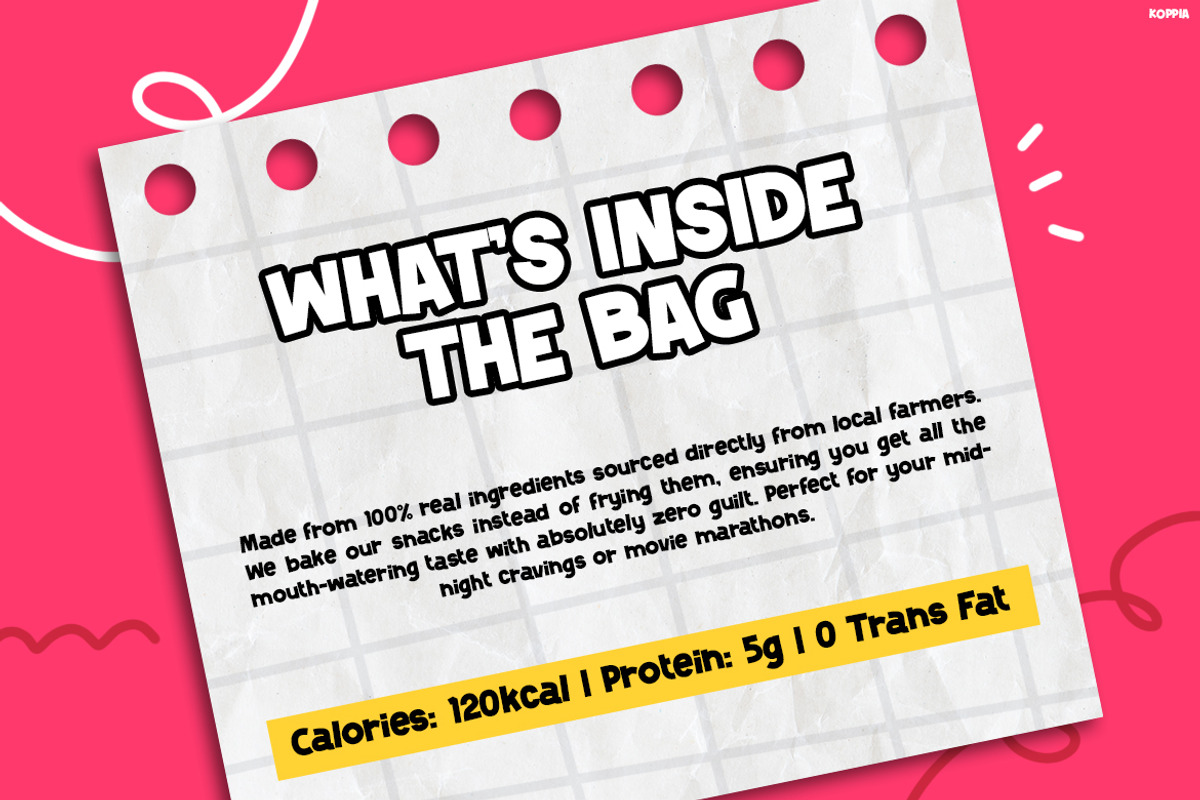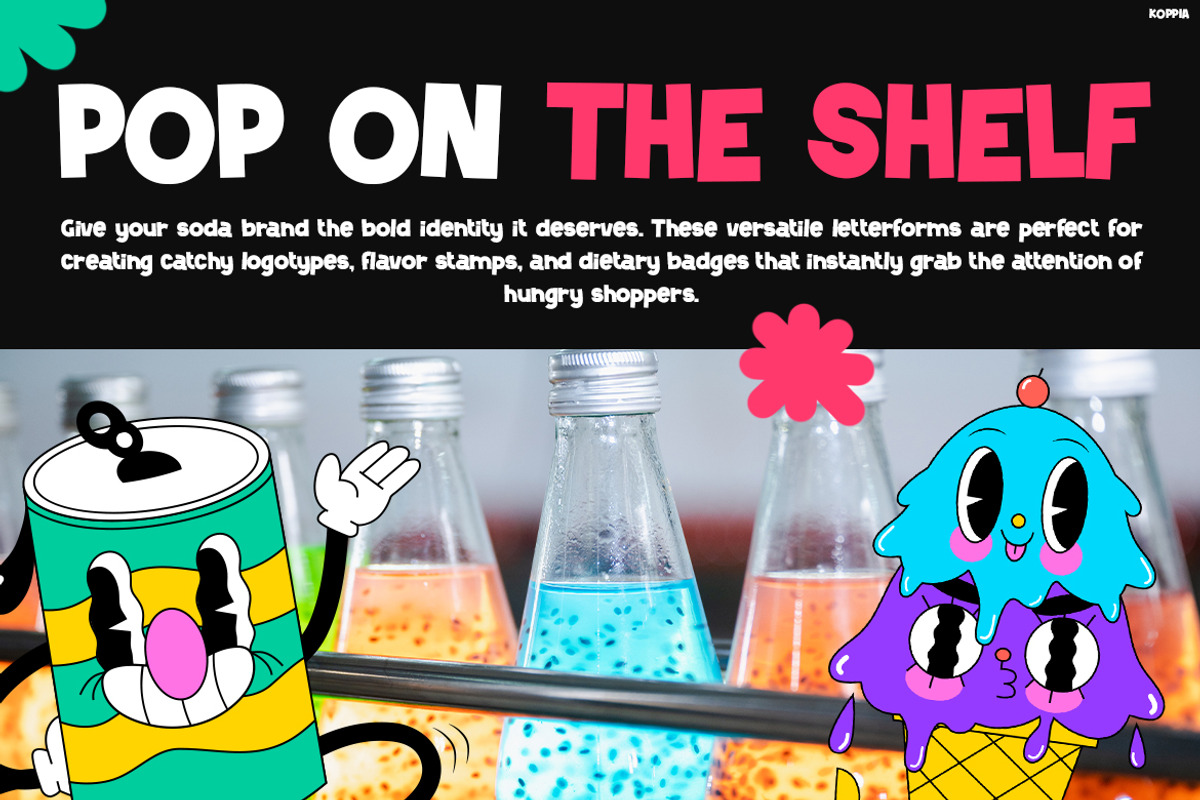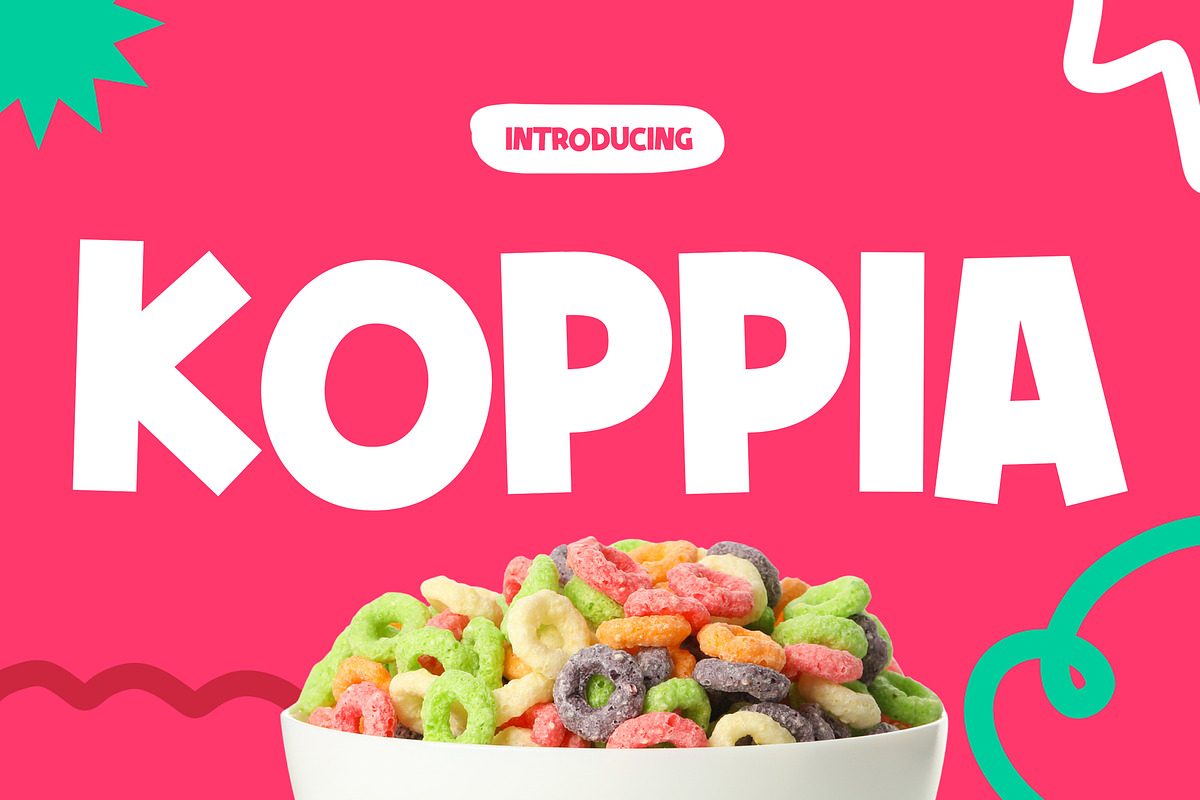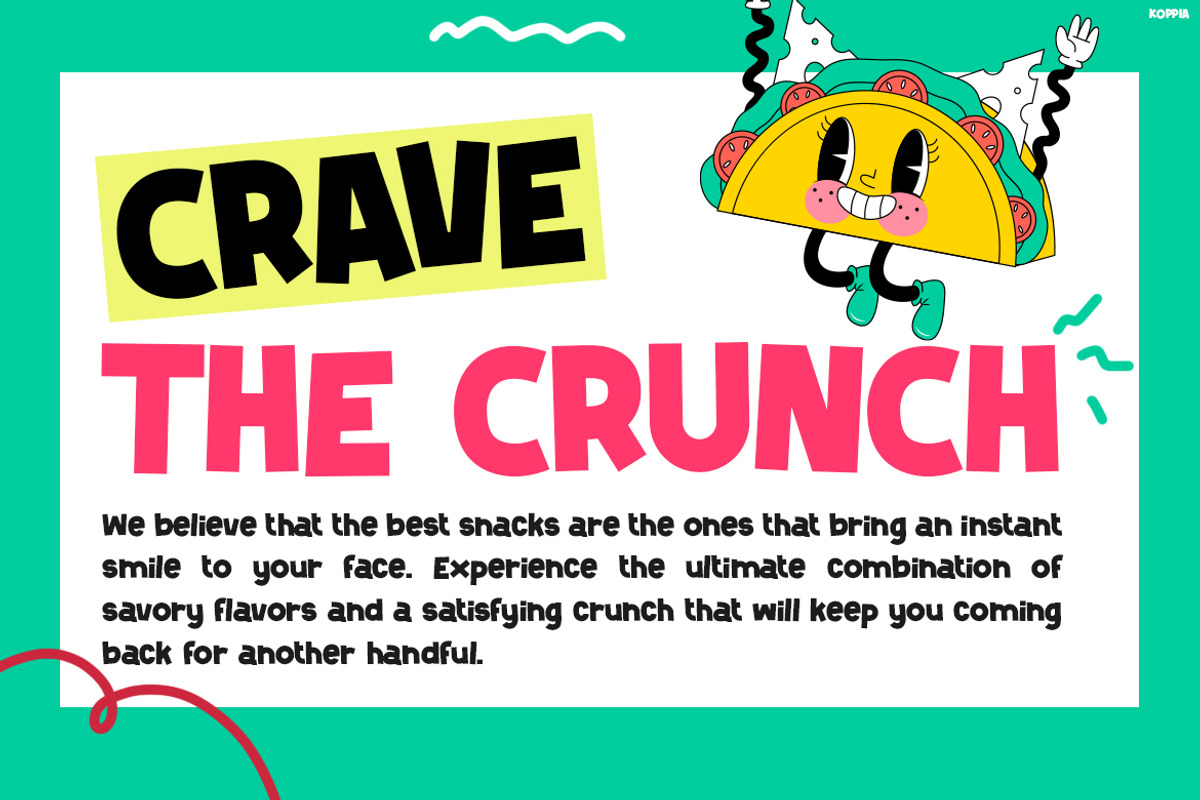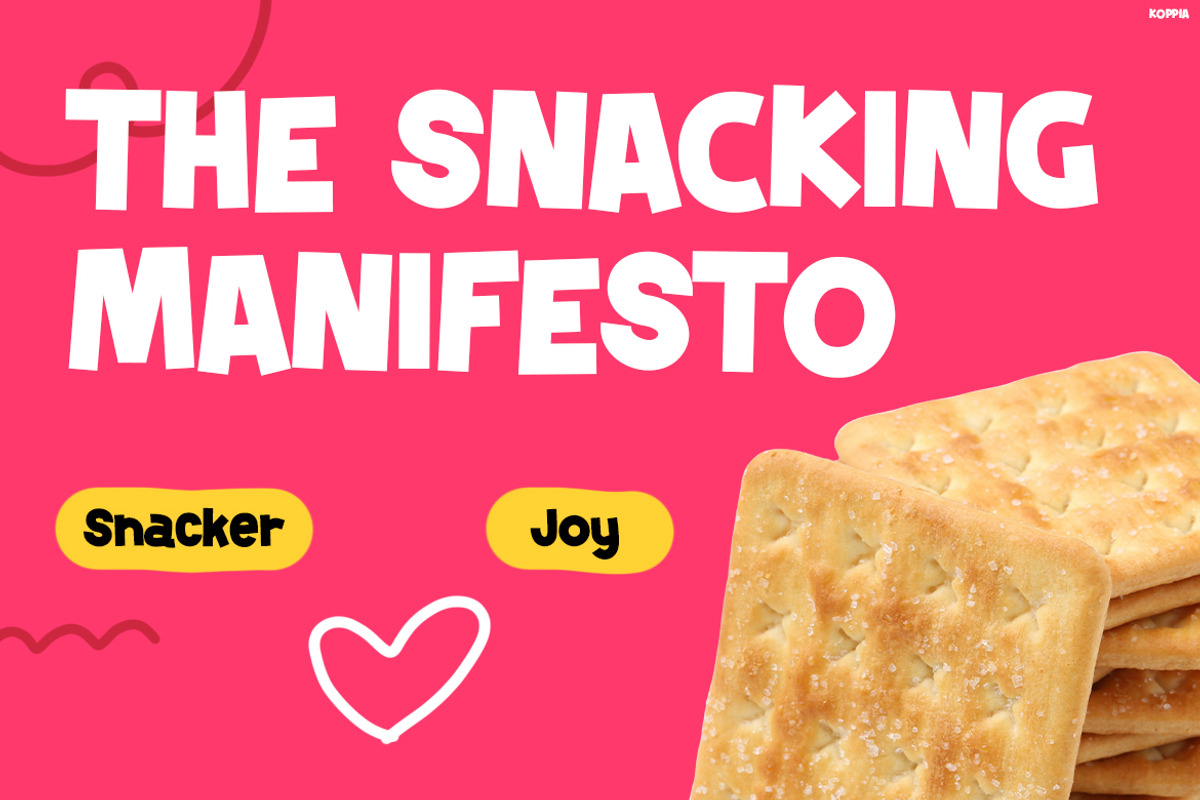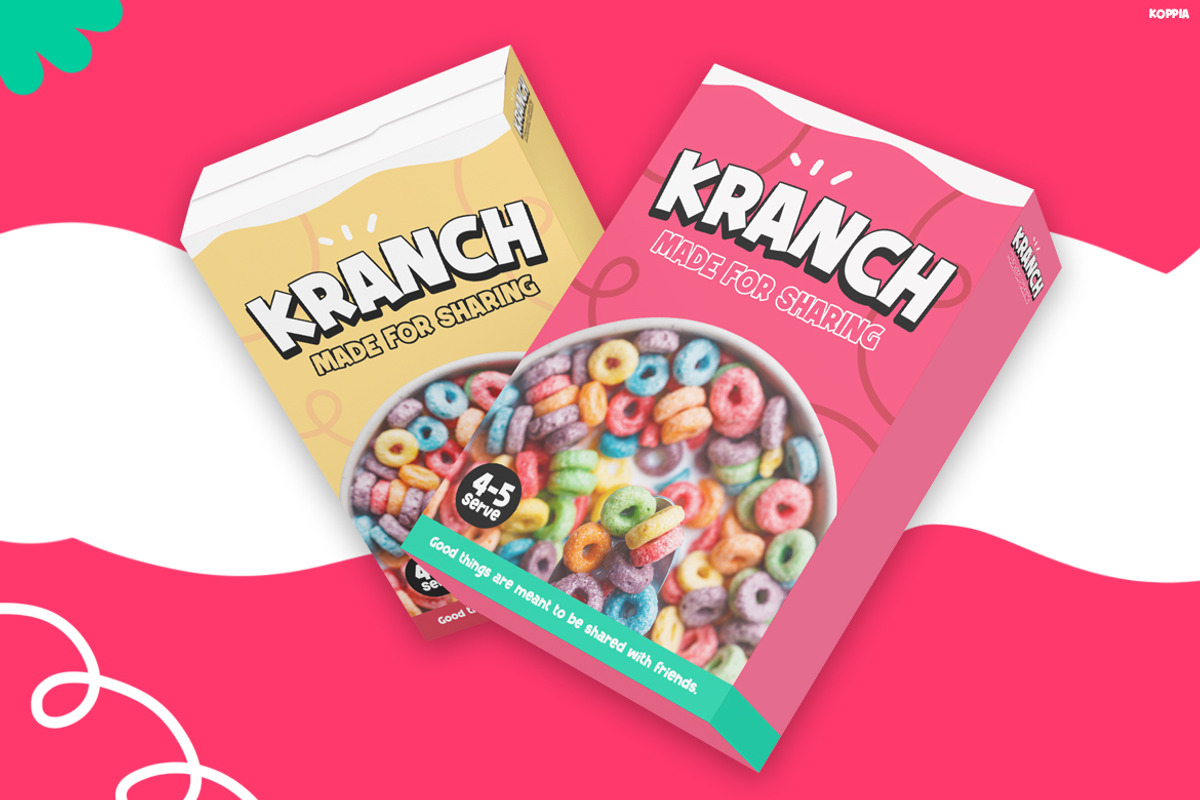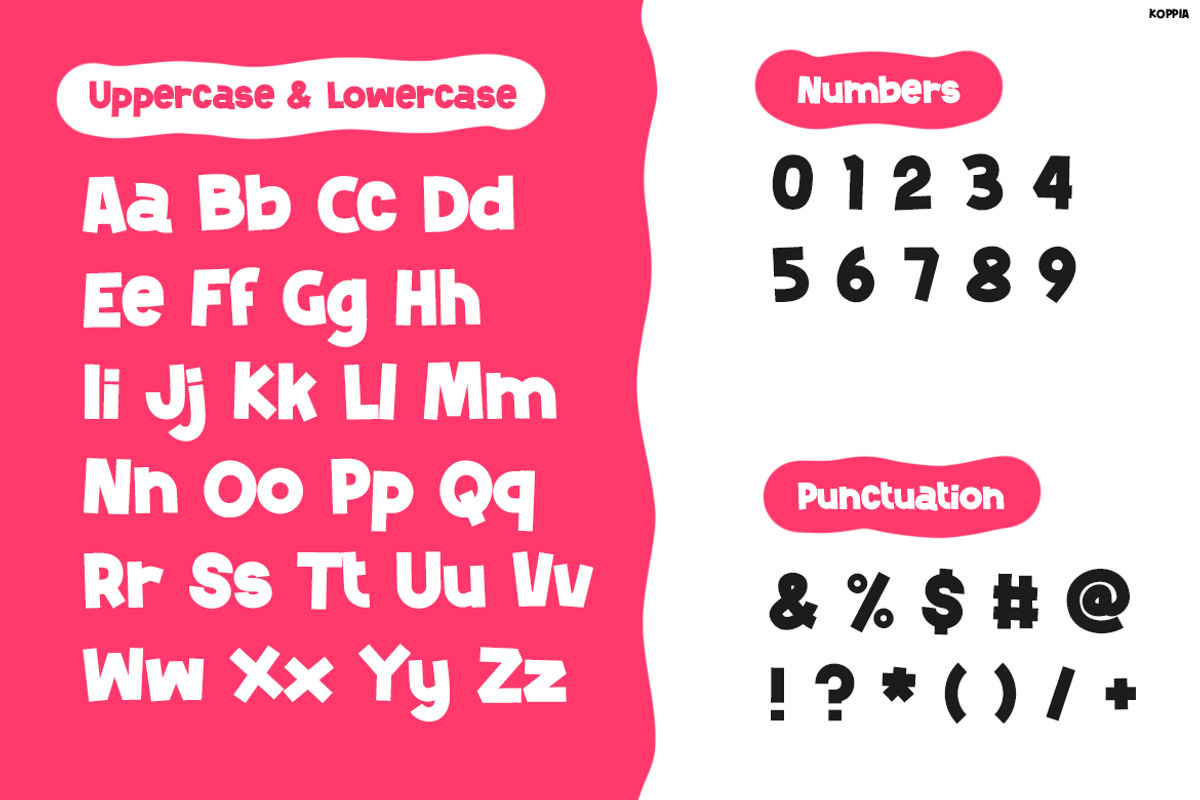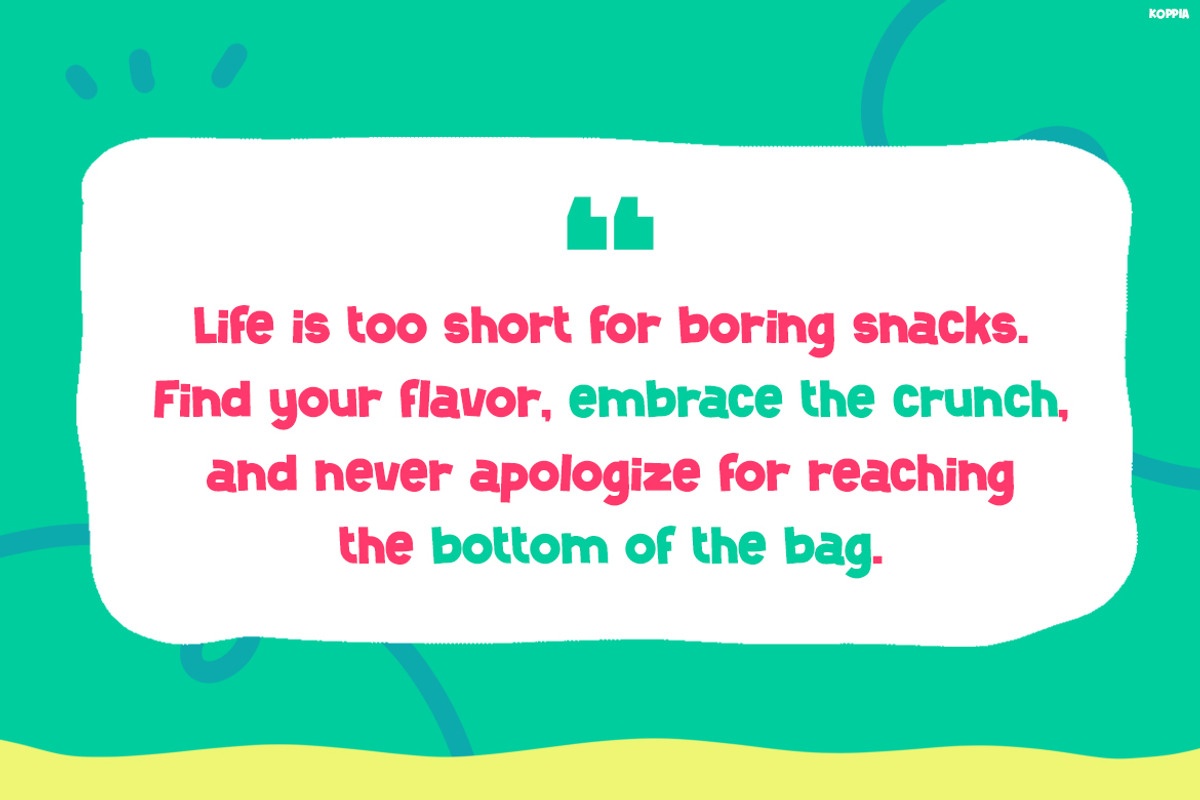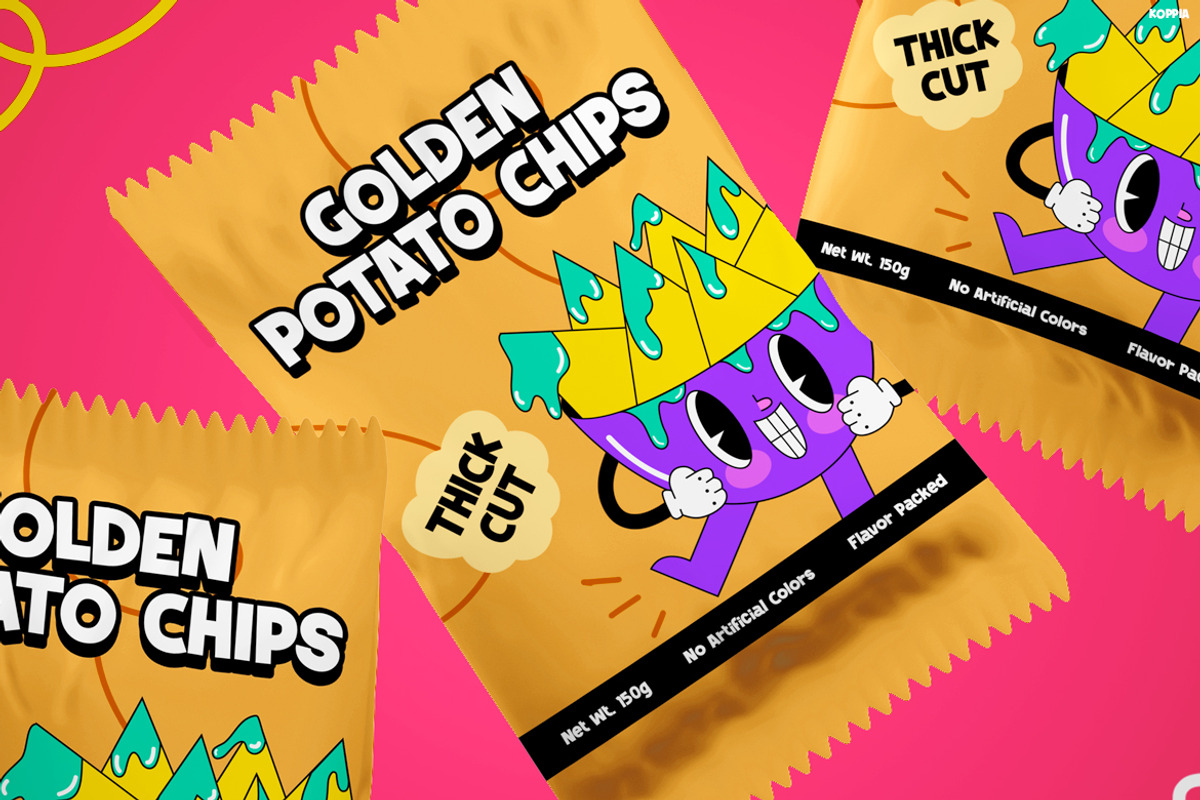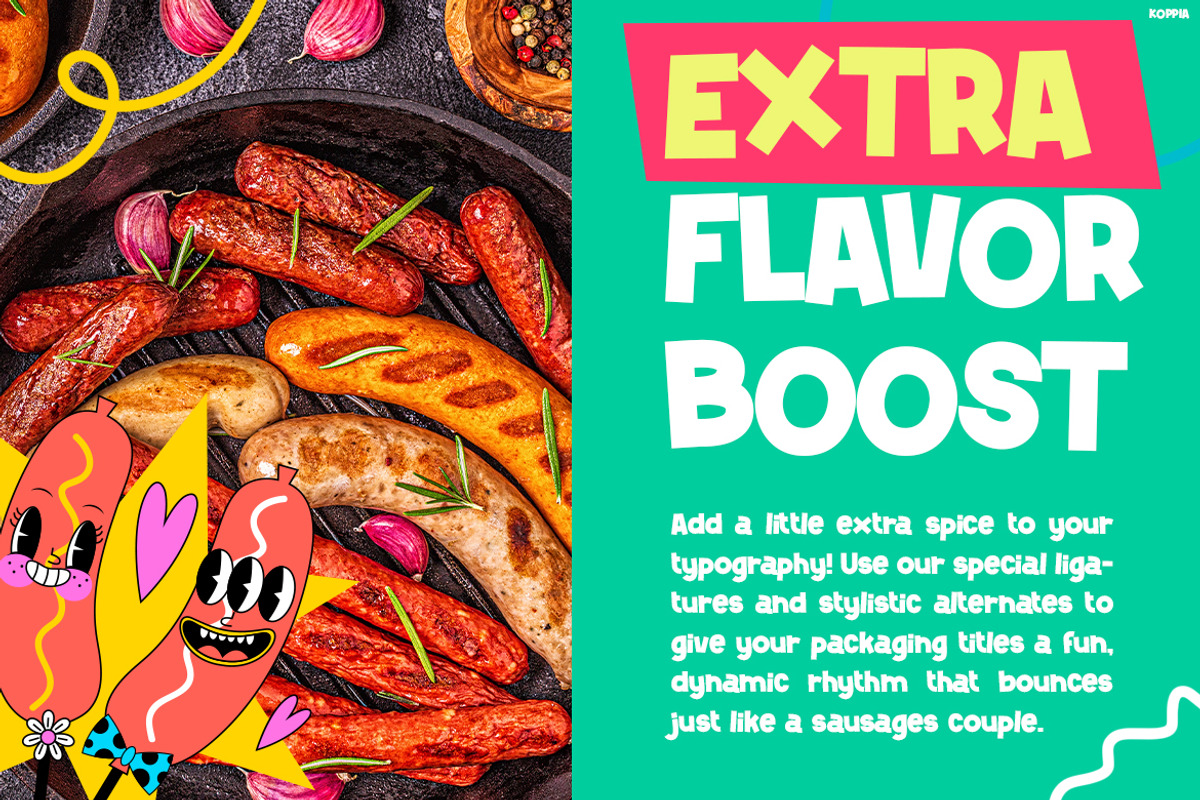
KOPPIA
KOPPIA – Bold Snacky Font Full of Fun Energy
Kids Font KOPPIA is a vibrant and playful typeface designed to explode with color, energy, and personality. At first glance, its bold chunky shapes and rounded edges instantly create a fun and eye-catching look. Moreover, the lively letterforms bring a dynamic feel that makes every word pop with excitement. Because of its strong visual impact, the font grabs attention effortlessly. In addition, its smooth readability keeps everything clear while still looking energetic. As a result, KOPPIA is perfect for designs that want to feel fun, loud, and full of life.
Kids Font KOPPIA is a bold display font crafted for playful and high-energy creative projects. Not only does it feature thick and cheerful letterforms, but it also pairs perfectly with colorful visuals, snack packaging, and fun branding concepts. Furthermore, its expressive style makes designs feel more engaging and lively. Therefore, whether you are creating product packaging, posters, or social media content, KOPPIA adds a punchy and exciting touch. Ultimately, it transforms simple text into vibrant visuals that instantly attract attention.